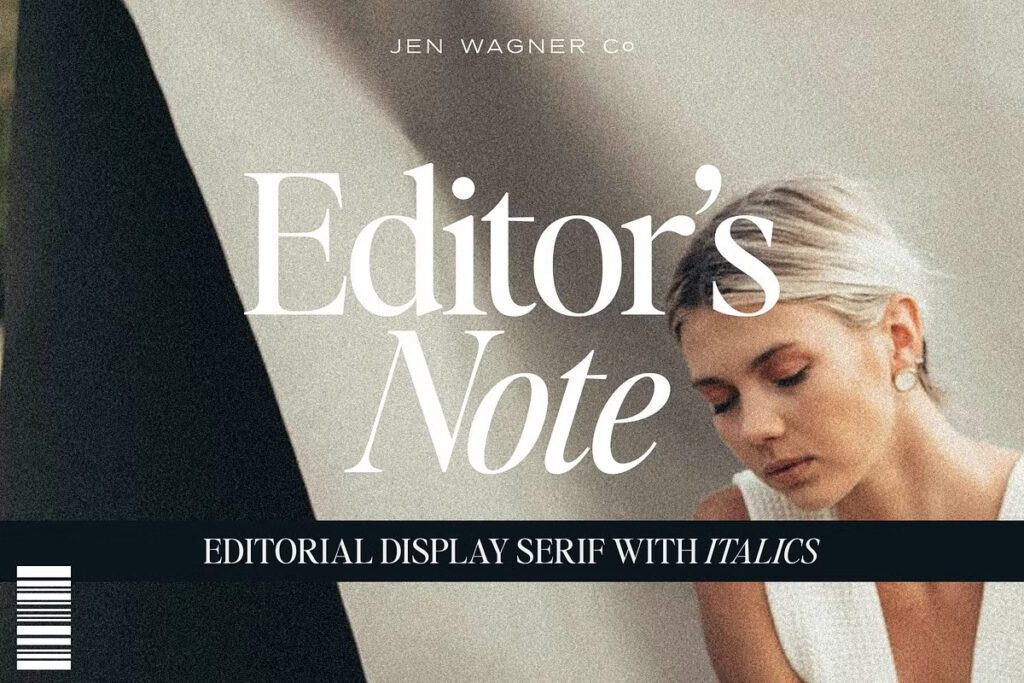
Editor’s Note: Clean Editorial Serif – A Timeless Typeface for Modern Designs
Introducing Editor’s Note, a beautifully crafted editorial serif that brings minimalist elegance and versatility to your designs. With clean lines and tight curves, this serif font is ideal for everything from editorial layouts to modern branding projects. It’s designed to offer a crisp, refined look in both uppercase and lowercase forms, making it perfect for large headers, striking quotes, and calls to action.
Why Editor’s Note?
Stunning in Display: The font works effortlessly in large settings, offering a modern, editorial vibe that’s trendy yet timeless.
Versatility: Pair Editor’s Note Regular with Editor’s Note Italic for a dynamic combination in quotes, logos, and branding materials.
Tight Letter Spacing: Designed for clean readability, you can adjust the spacing to create a bold, trendy all-caps display look, perfect for striking visual statements.
Key Features:
Uppercase & Lowercase: Includes both forms along with numbers and punctuation.
Foreign Language Support: Comes with support for multiple languages, making it versatile across various design applications.
Elegant Pairings: Pairs beautifully with fonts like Switzer, Editor’s Hand, and Nautica to enhance your design aesthetic.
Add a touch of refined sophistication to your next project with Editor’s Note, the font that’s redefining editorial typography.